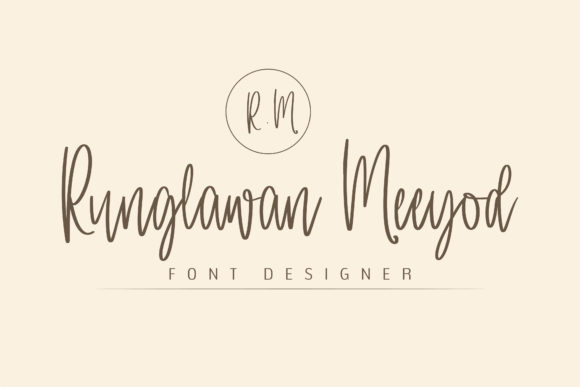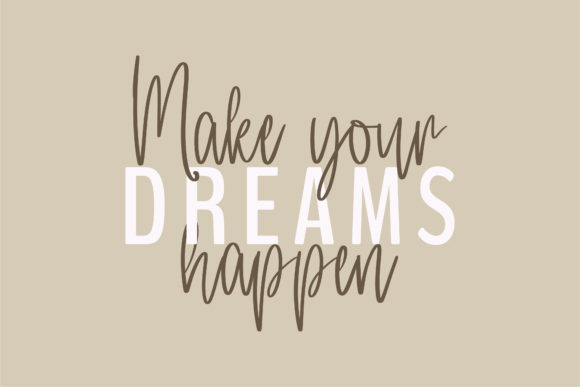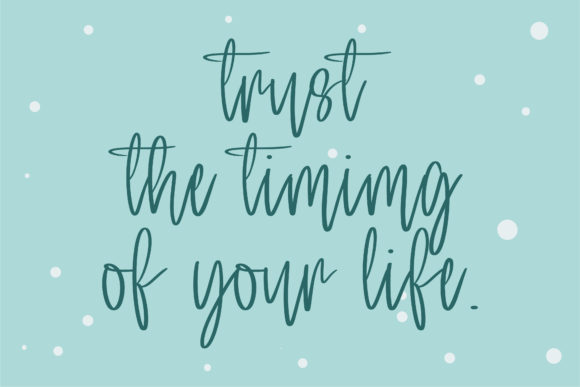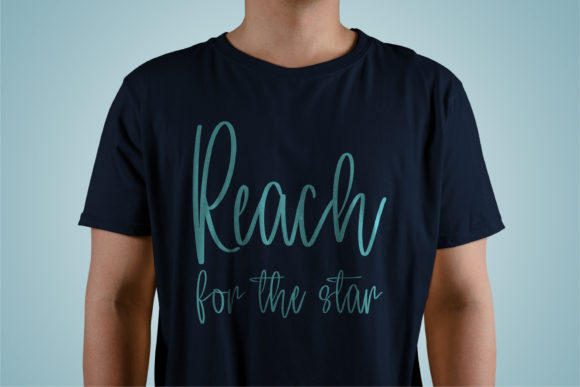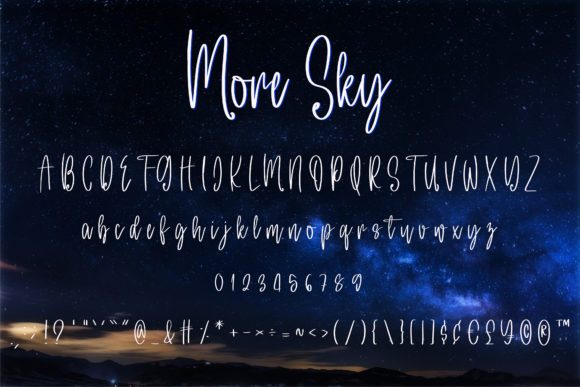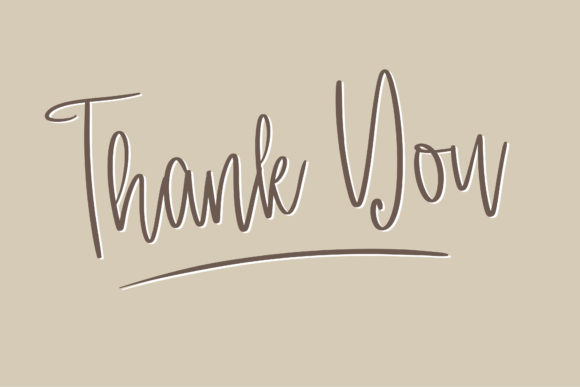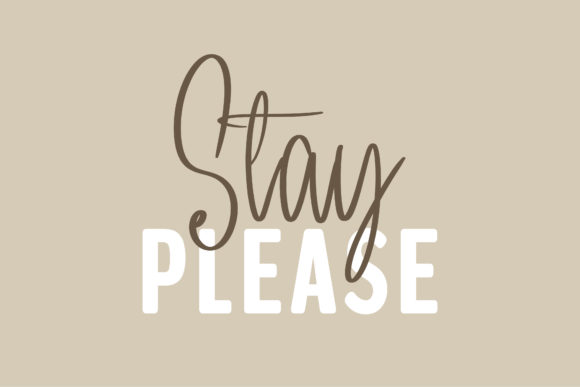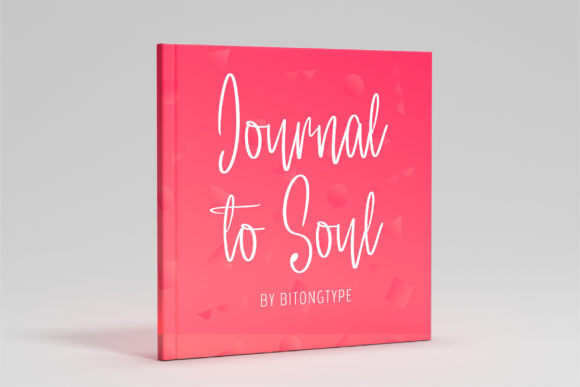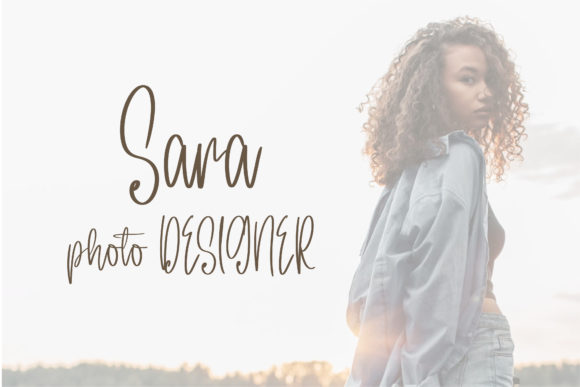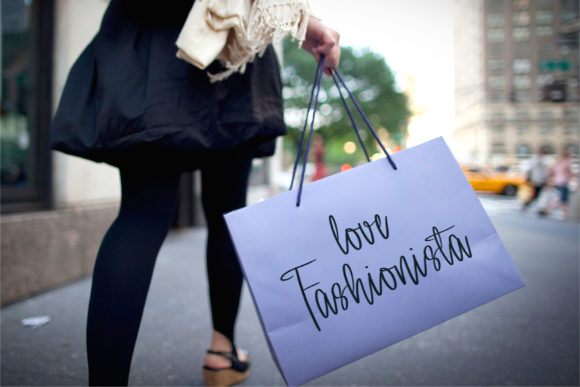
More Sky Font
About More Sky Font
More Sky is a beautiful and flowing handwritten script font. Its natural and unique style makes it incredibly fitting to a large pool of designs. The only limit is your imagination!